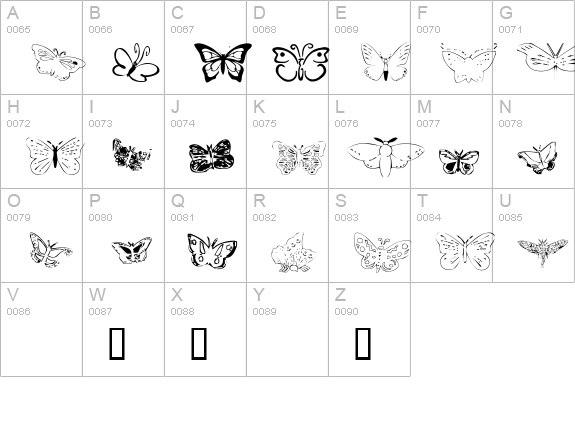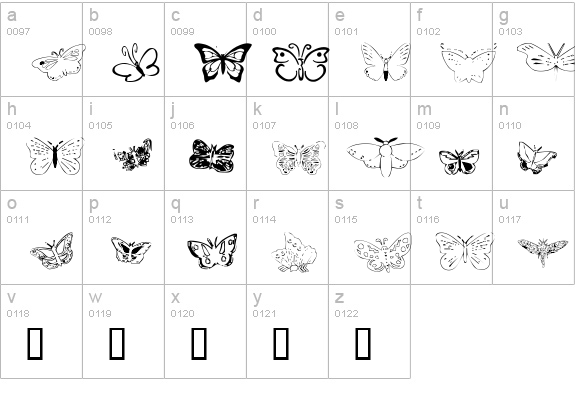
Introducing ButterflyHeaven font - a delicate and whimsical typeface that exudes elegance and grace. Perfect for adding a touch of charm to your designs, this font features intricate details that resemble the delicate wings of a butterfly. With its flowing curves and graceful strokes, ButterflyHeaven is sure to captivate your audience and elevate your projects to new heights. But the best part? ButterflyHeaven is completely free to download at FontsMarket.com! That's right, you can easily access this beautiful font without any cost. Whether you're working on a romantic wedding invitation, a whimsical branding project, or a dreamy poster design, ButterflyHeaven is the perfect choice to bring a touch of magic to your creations. Download it now and let your designs take flight with ButterflyHeaven font.